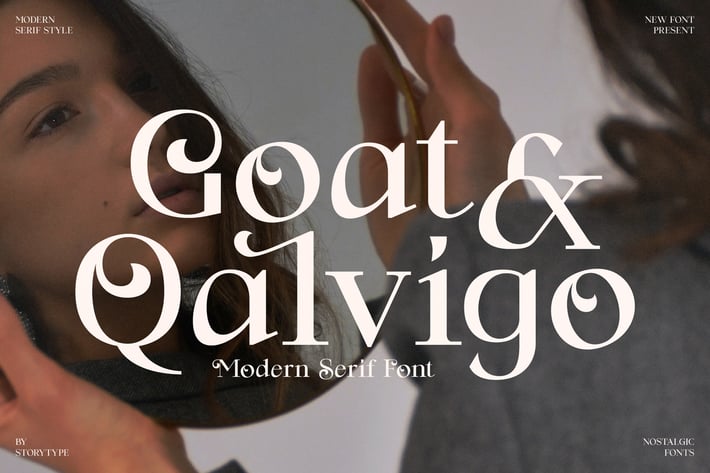
Goat Qalvigo Serif Font
Goat Qalvigo is a modern serif font that perfectly blends timeless elegance with contemporary sophistication. Featuring bold curves and refined contrast, it delivers a luxurious aesthetic suitable for premium branding and editorial designs. Its distinctive style adds character to any composition, from fashion to creative showcases.
Modern serif with elegant and stylish curves
High contrast strokes for a refined look
Fashion and luxury branding
Editorial and magazine layouts
Packaging design
Business cards and logos
Creative typography posters
* Invitations and elegant prints
A modern serif that defines sophistication — Goat Qalvigo brings bold elegance and timeless charm to every design.